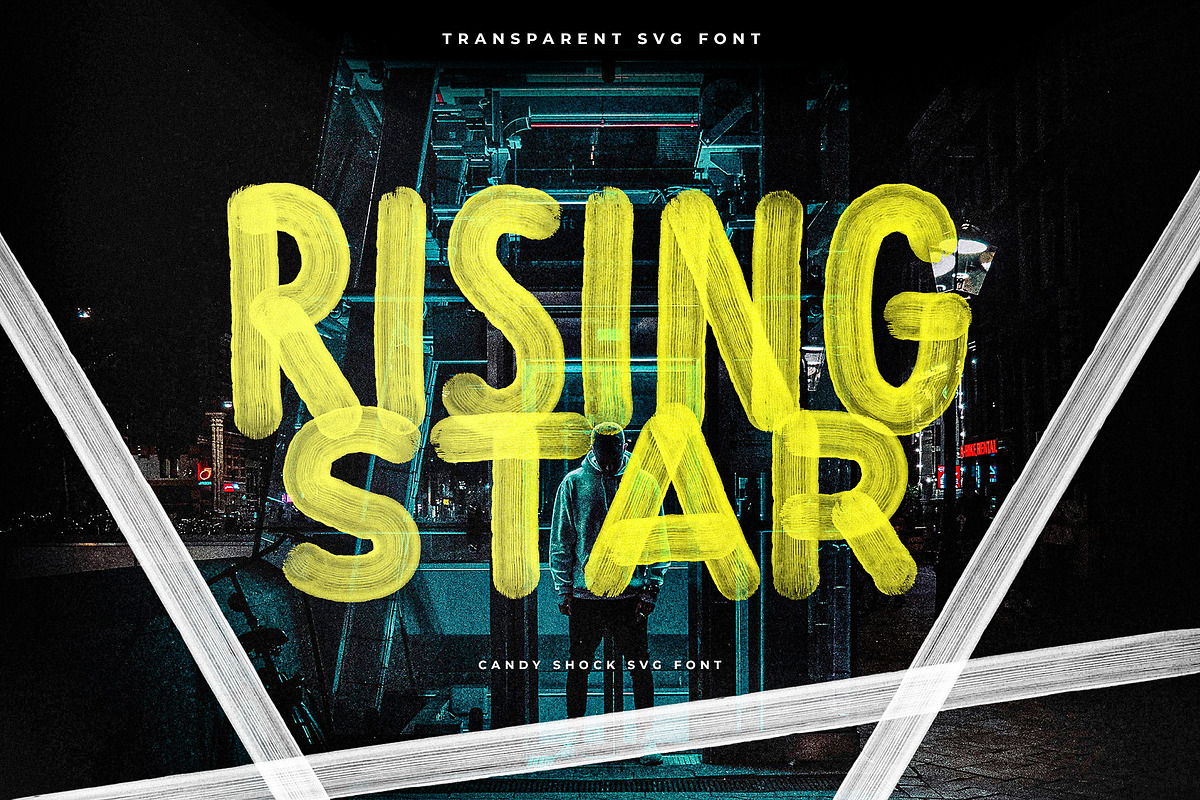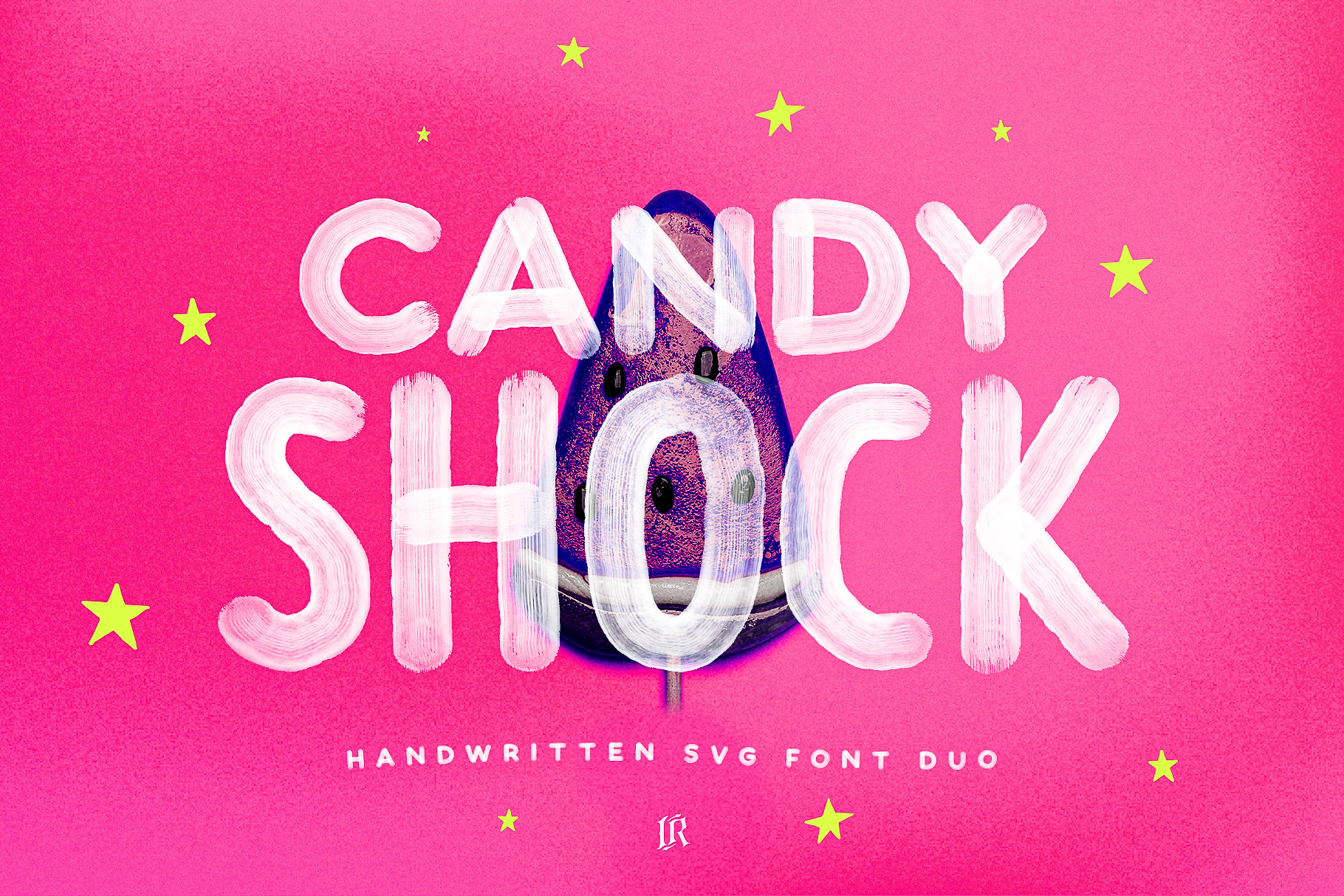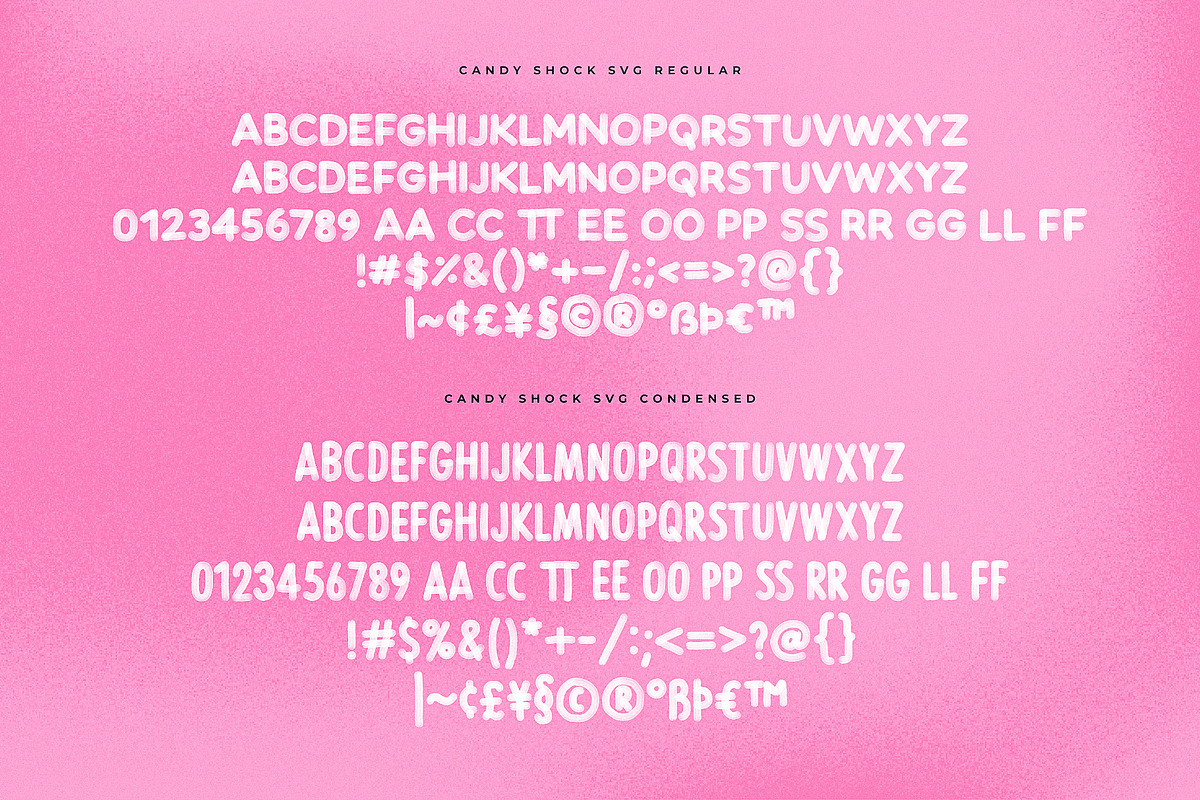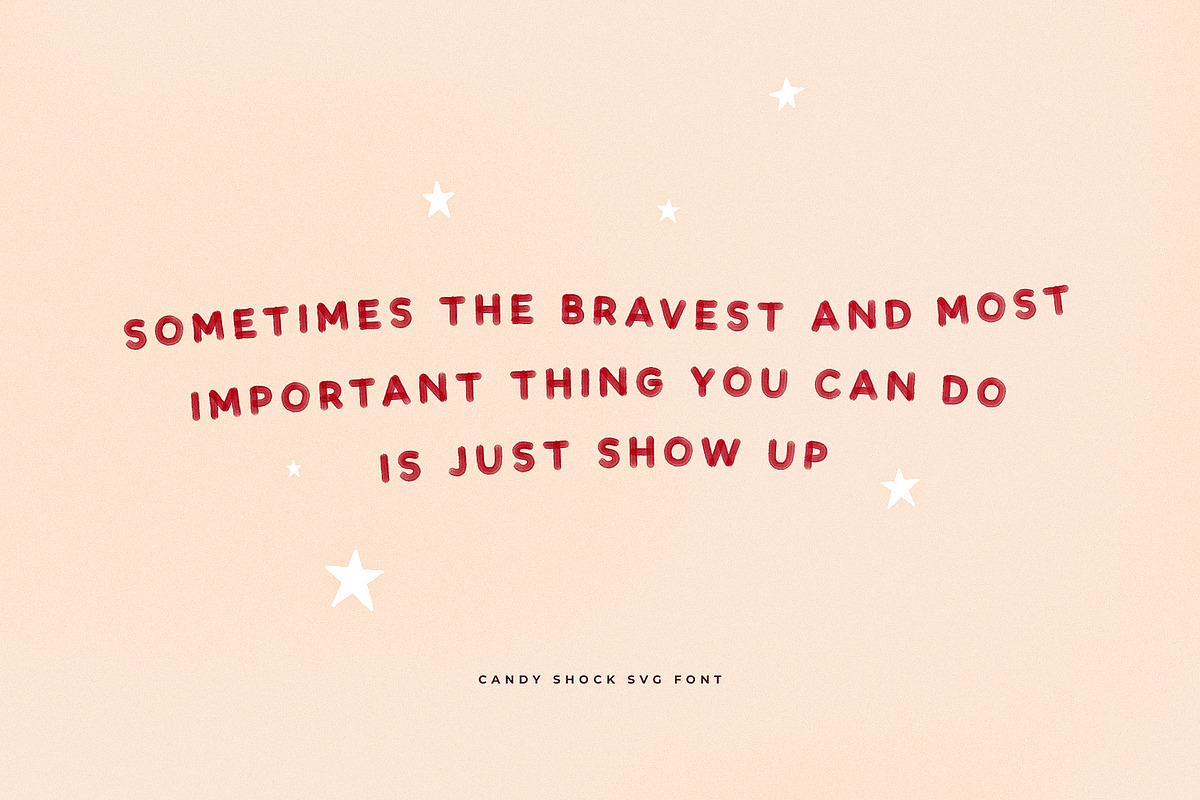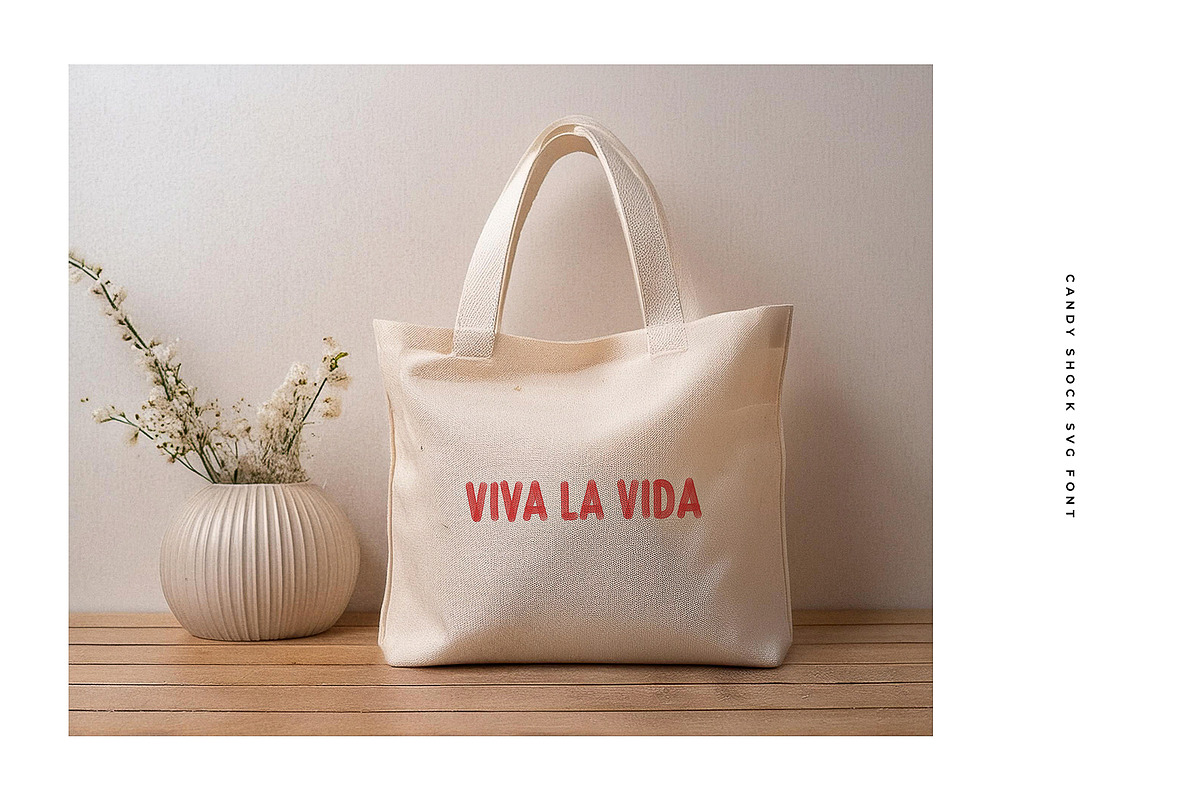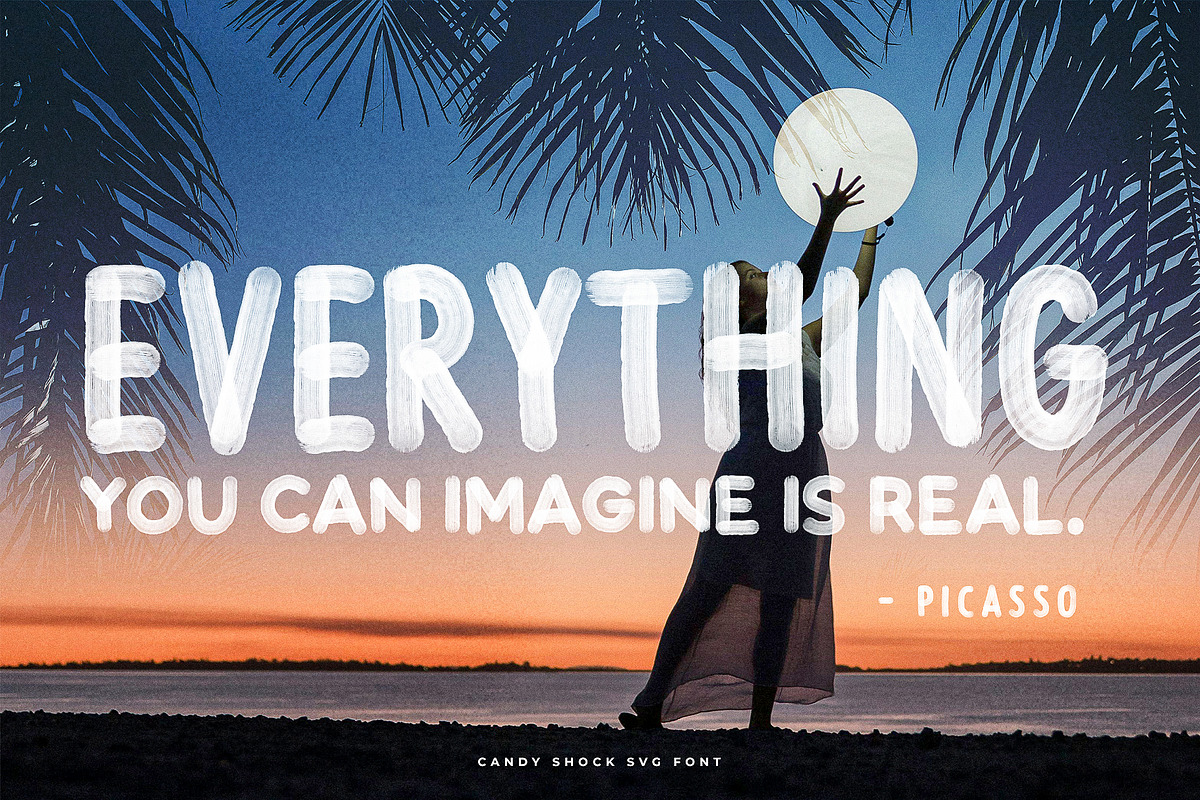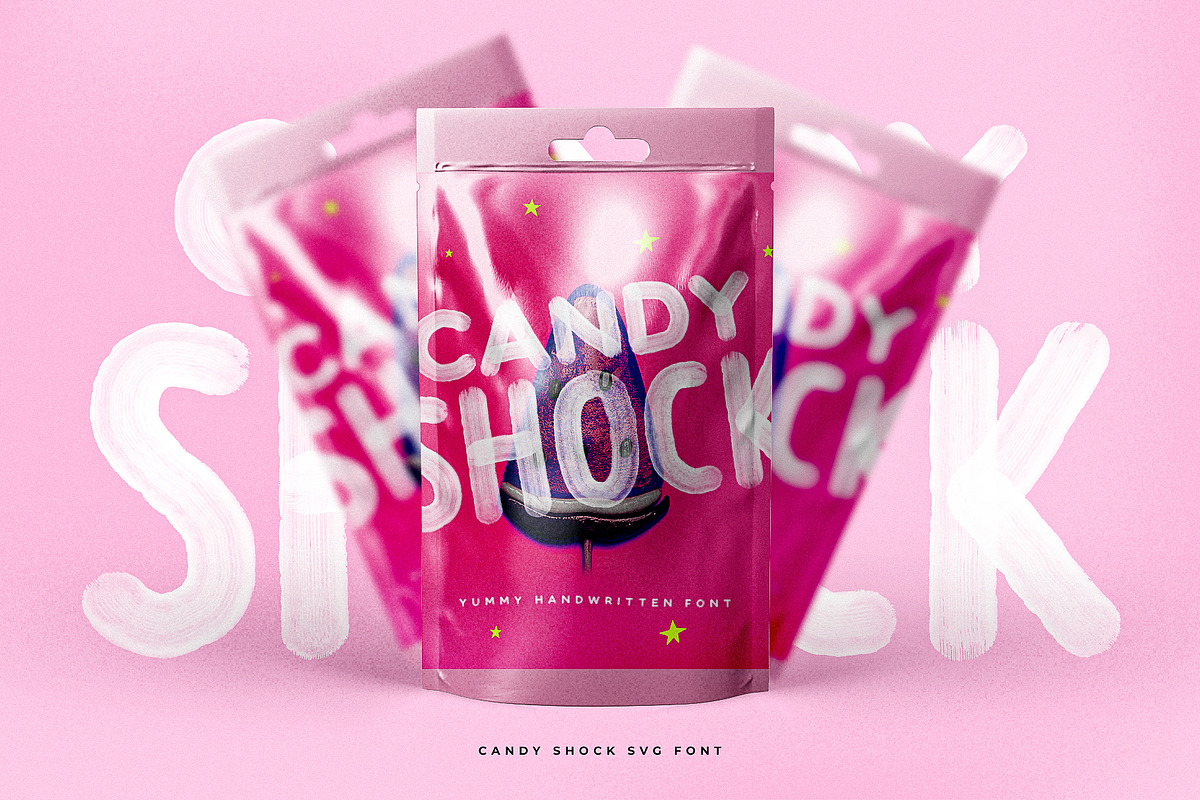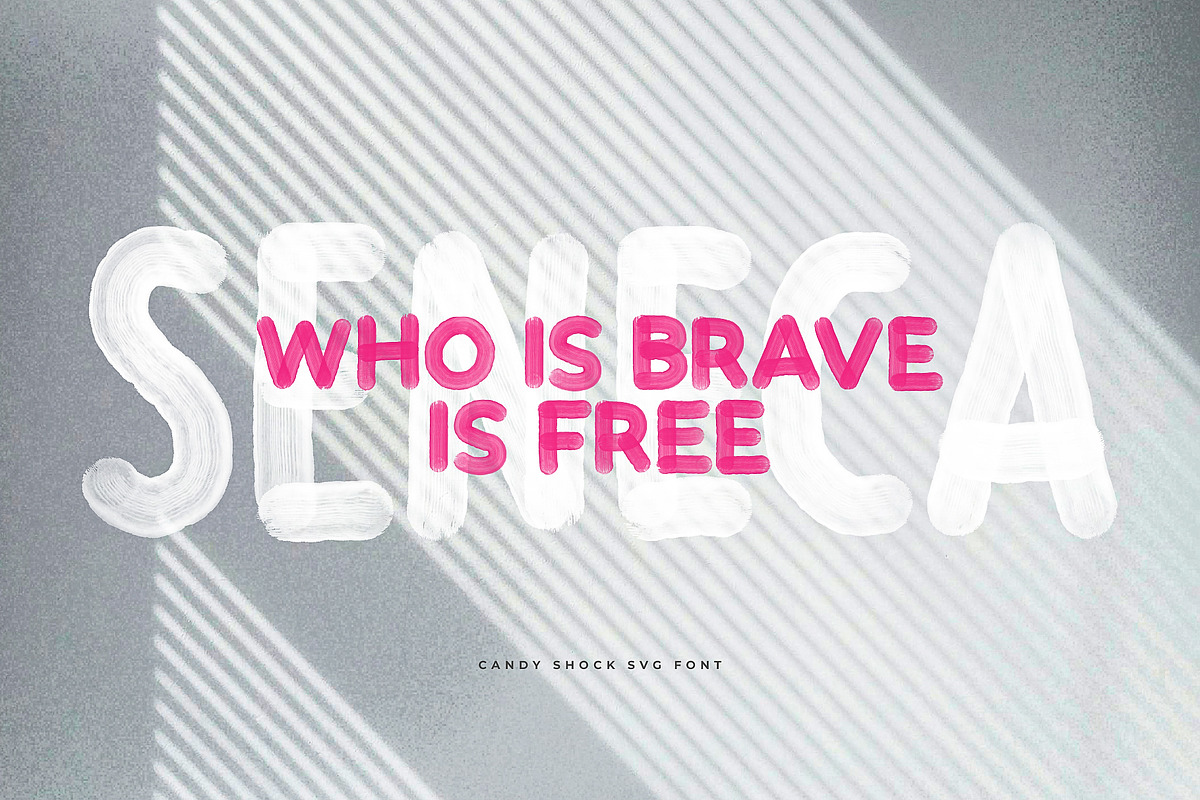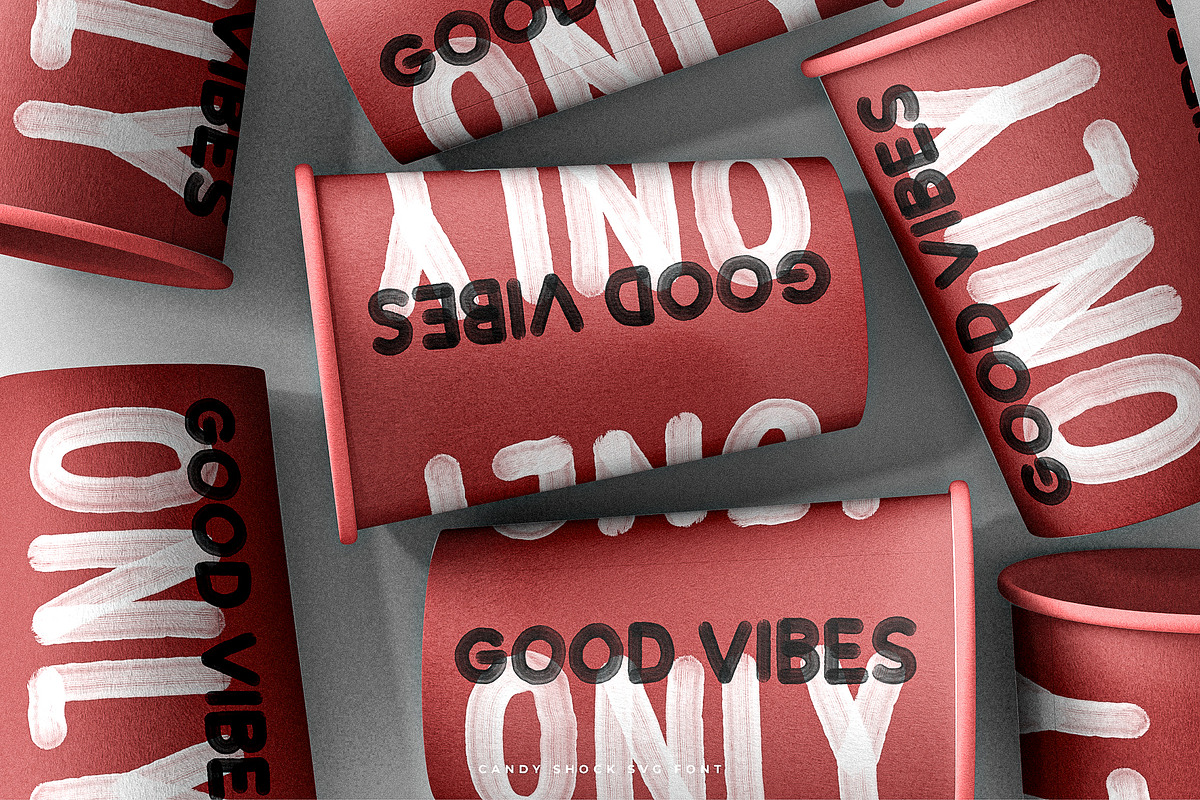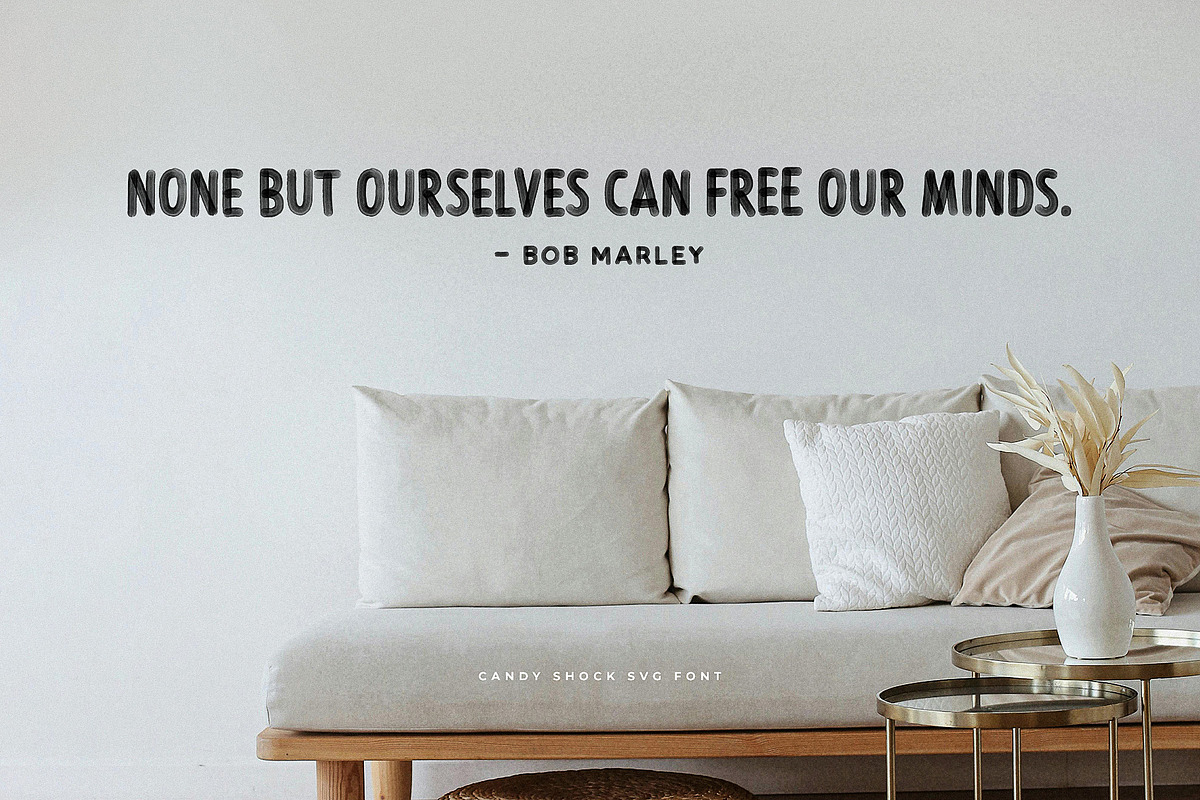
Candy Shock SVG Font
Introducting the new SVG font Candy Shock, hand lettered font with semi-transparent effect. Candy Shock comes in SVG and “normal” vector OTF version. SVG font preserves all the high definition detail of the original handwritten letters. Using OpenType-SVG technology it truly looks realistic.
Candy Shock SVG Font is English-only.